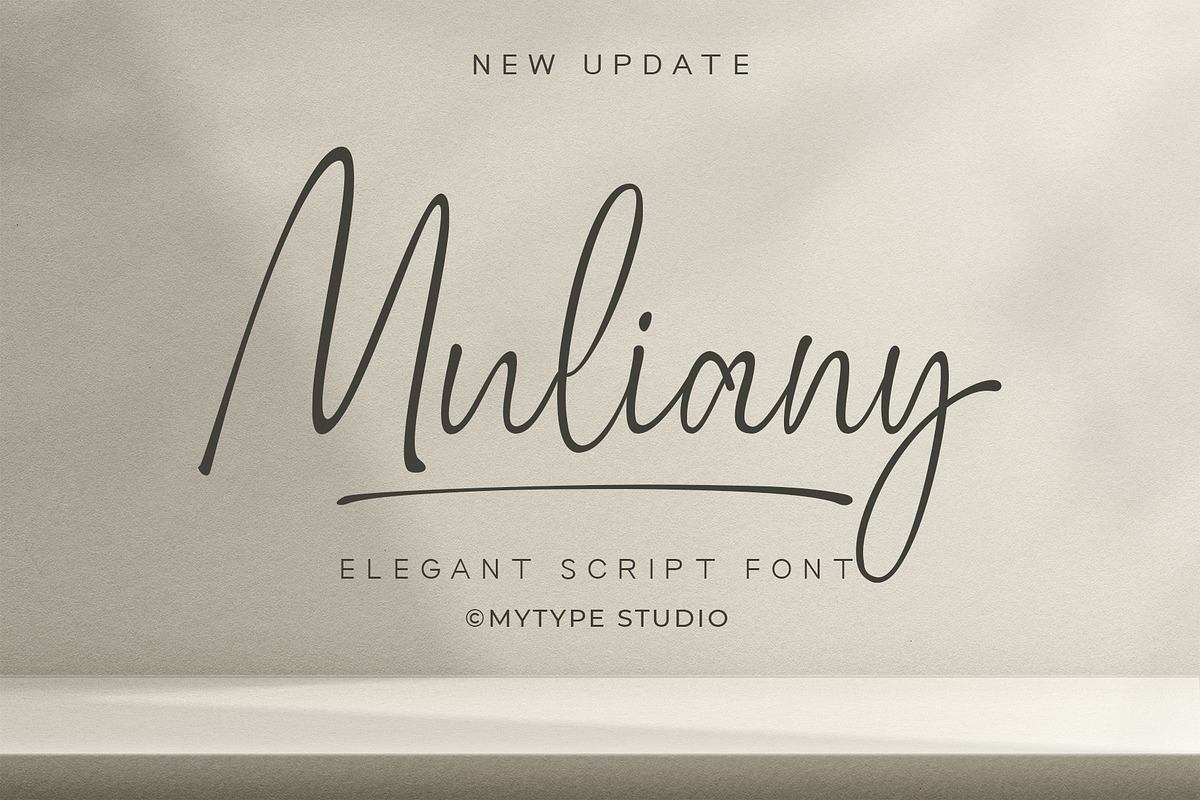
Muliany | Elegant Script Font Free Download
Muliany | Elegant Script Font Free Download is a graceful and flowing typeface designed to bring sophistication and femininity to your creative work. With its smooth curves, delicate strokes, and refined flourishes, this script font is perfect for wedding invitations, beauty branding, fashion logos, and romantic social media graphics.
Muliany | Elegant Script Font Free Download adds a luxurious handwritten feel that’s both elegant and approachable. It includes stylish alternates and ligatures to give your text a natural, customized look—ideal for anything from signature-style logos to heartfelt quotes.
Whether you’re working on print or digital designs, Muliany ensures your message feels elevated and personal. You can try it for free in test projects or mockups, but a commercial license is required for professional use. Let Muliany add a touch of modern romance and script sophistication to your designs.